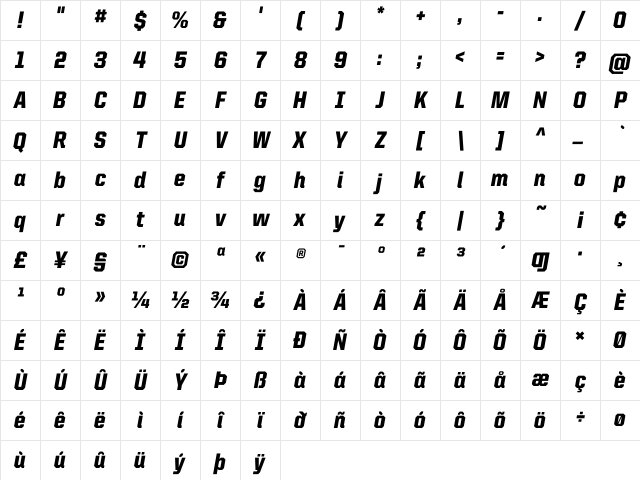
United Italic SemiCond is a composed and adaptable typeface that performs quietly and consistently across a wide range of design contexts. The slanted form adds forward momentum and visual energy. Its narrow stance lets it pack a punch even in space-constrained designs.
Pro Tip: Use United Italic SemiCond for emphasis, pull quotes, and subheadings where its slanted energy can add rhythm to the layout.